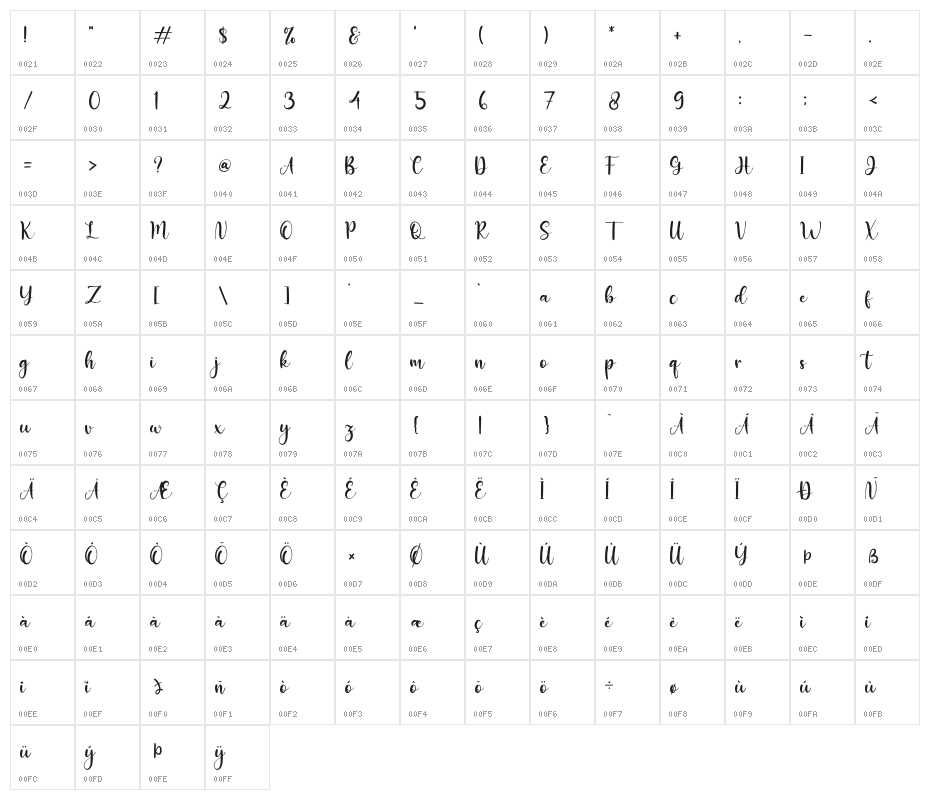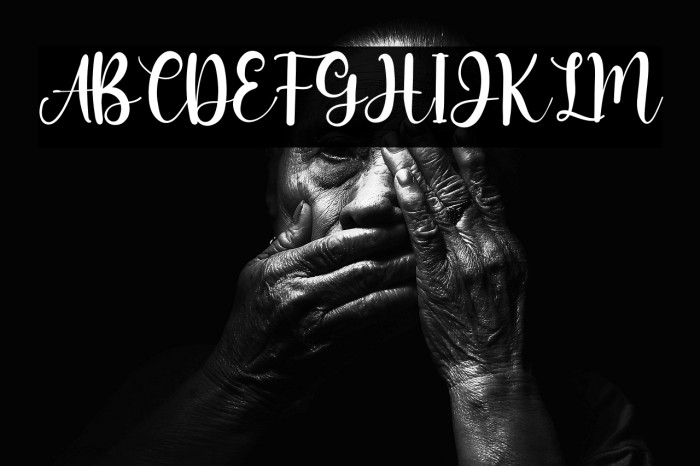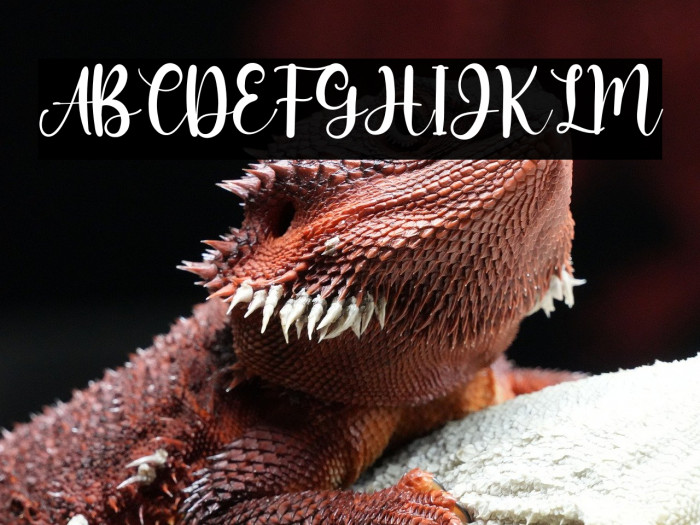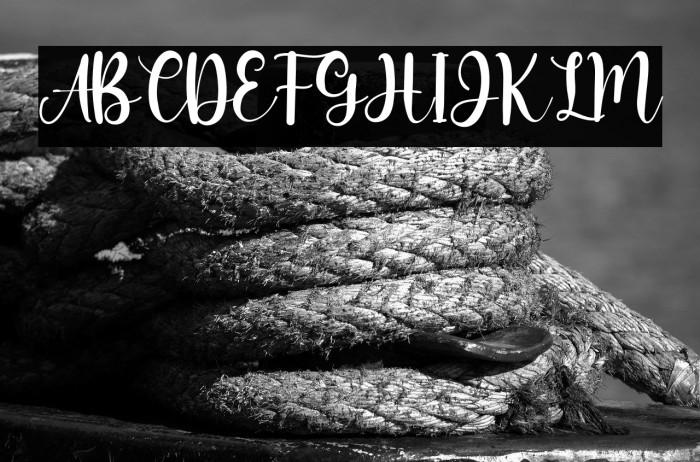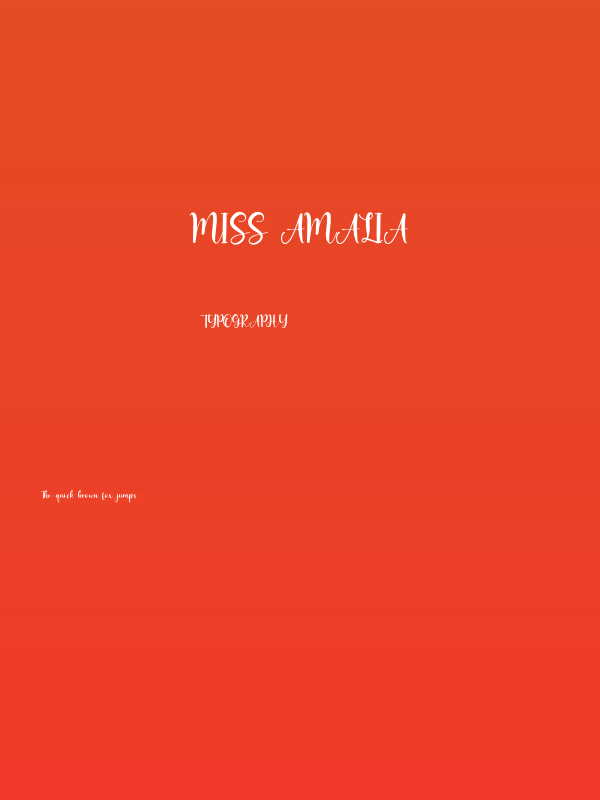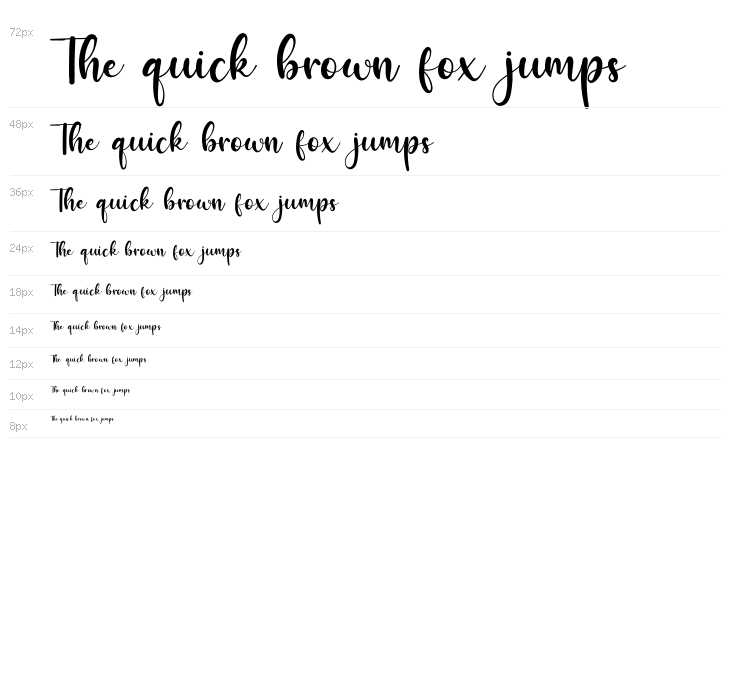
Miss Amalia Font
Miss Amalia Description
This font exudes an elegant and flowing script style, characterized by its smooth, cursive strokes and graceful curves. The uppercase letters are bold and prominent, with a distinct flair that adds a touch of sophistication. The lowercase letters maintain a consistent flow, enhancing readability while retaining an artistic flair. Numbers and special characters are crafted with the same attention to detail, ensuring a cohesive look across all elements. The overall design is both decorative and functional, making it suitable for a variety of creative applications.
| Use Case | Logos, Invitations, Decorative Text |
| Proposed Projects | Ideal for wedding invitations, branding, greeting cards, and elegant packaging designs. |